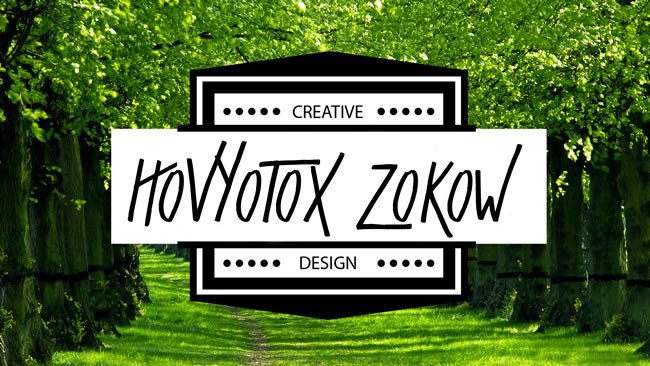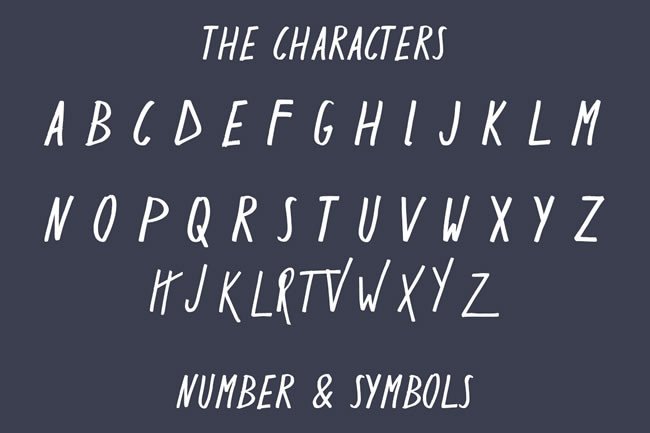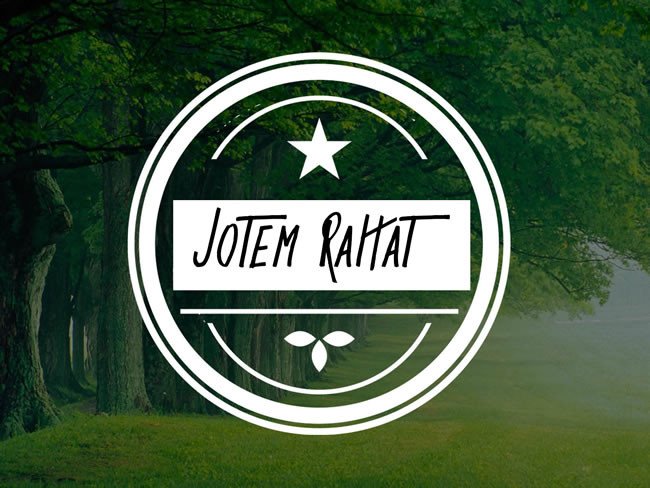
Introduction to Ractet Font
Have you ever been stuck in front of a blank canvas, searching for the perfect font to bring your creative project to life? That’s exactly where the Ractet Font comes in – a game-changing, high-quality typeface designed to elevate your designs and make them stand out from the crowd. With its fresh and modern aesthetic, this versatile font is perfect for designing invitations, greeting cards, branding materials, business cards, quotes, posters, and more.
| 👤 Author | Only The Originals |
Key Features of Ractet Font
- Comes in a single weight, making it easy to use in various design contexts without worrying about font pairing.
- Designed with a unique aesthetic, featuring a mix of modern and vintage elements that add a touch of sophistication to any creative project.
Honest Review: Ractet Font
As a designer, I’m always on the lookout for high-quality design resources to enhance my creative projects. The Ractet Font is one such resource that caught my attention. Here’s my honest review.
- ✨ High quality: The font is well-designed, with crisp lines and smooth typography.
While the Ractet Font has its strengths, there are a few limitations to consider.
- ⚠️ Limited character set: The font’s character set is limited, which may not be suitable for complex designs.
- ⚠️ Not suitable for large text: The font may not be the best choice for large text, as it can become difficult to read.
Overall, the Ractet Font is a solid design resource that can add a touch of sophistication to your creative projects. While it may have some limitations, its high quality and transparent background make it a great choice for designers looking for a reliable font.
Tips for Getting the Most Out of Ractet Font
Experiment with different font sizes, colors, and styles to create a visually appealing design. You can also combine Ractet Font with other design resources to create a unique and creative project.
Ractet Font is perfect for creative projects such as logos, branding, and marketing materials. It’s also great for social media graphics, presentations, and even wedding invitations.